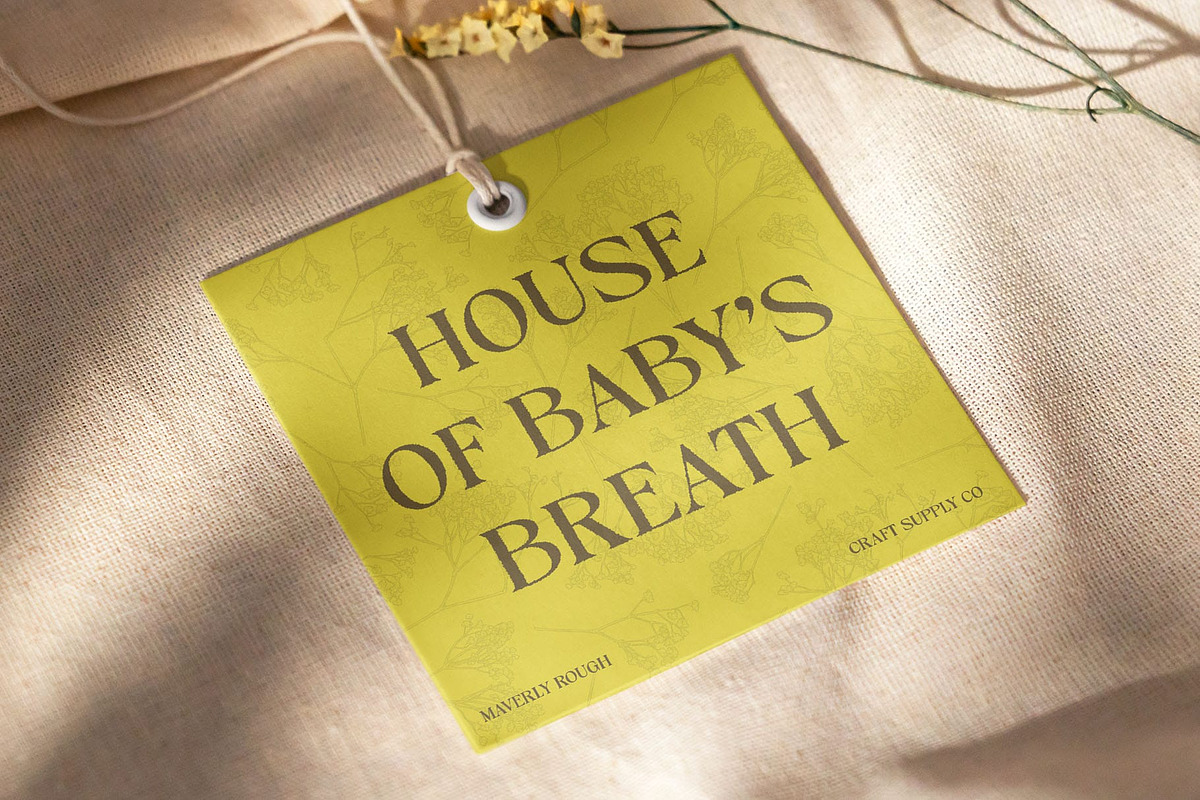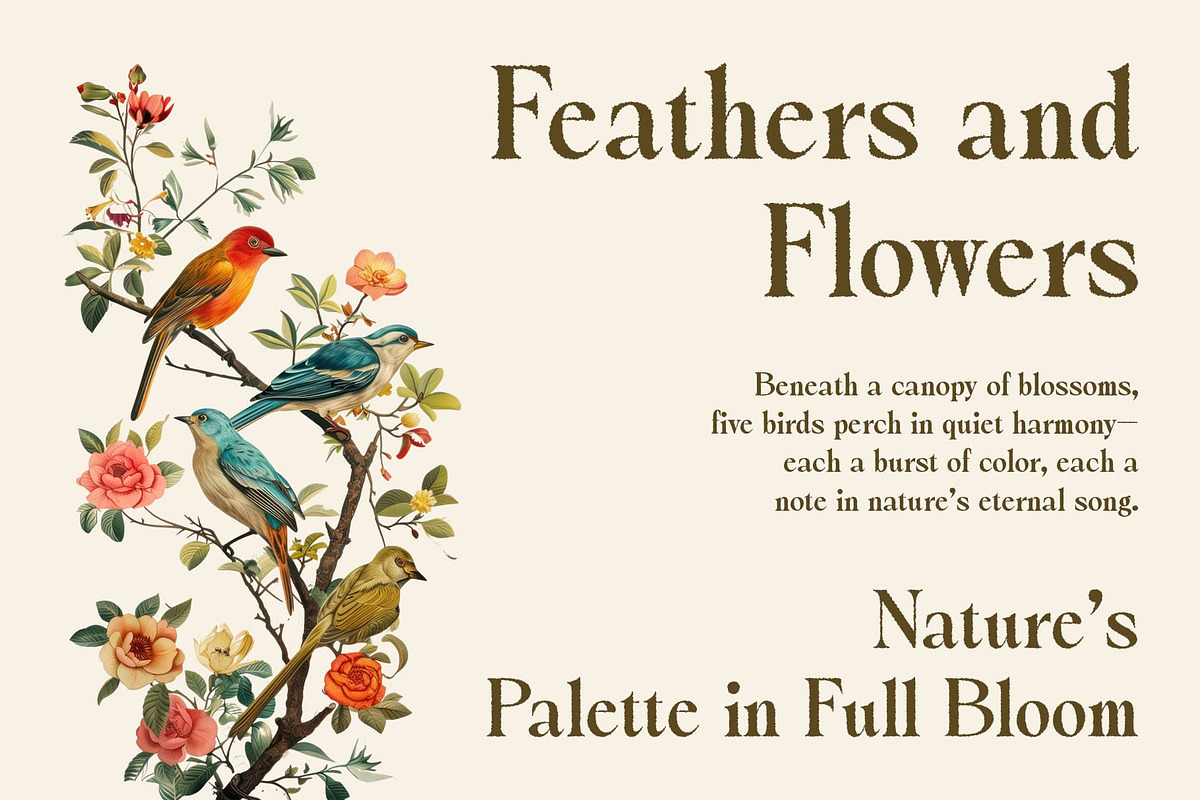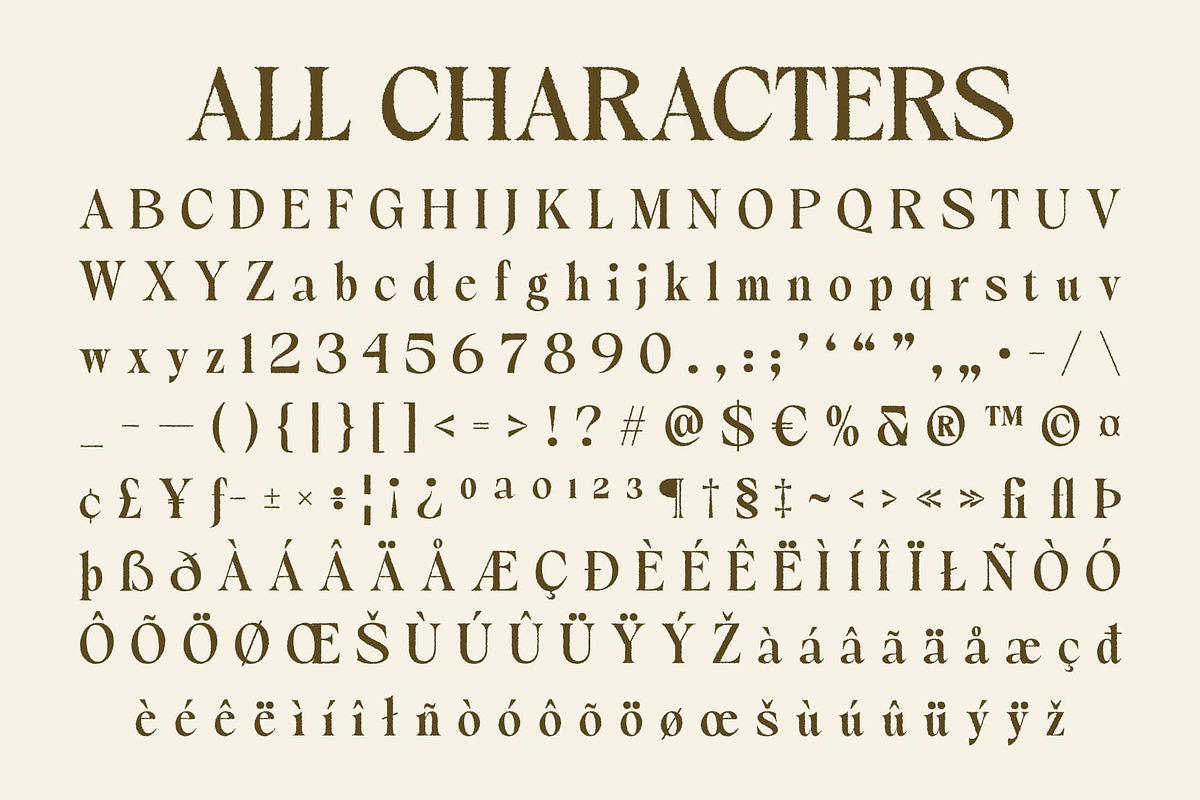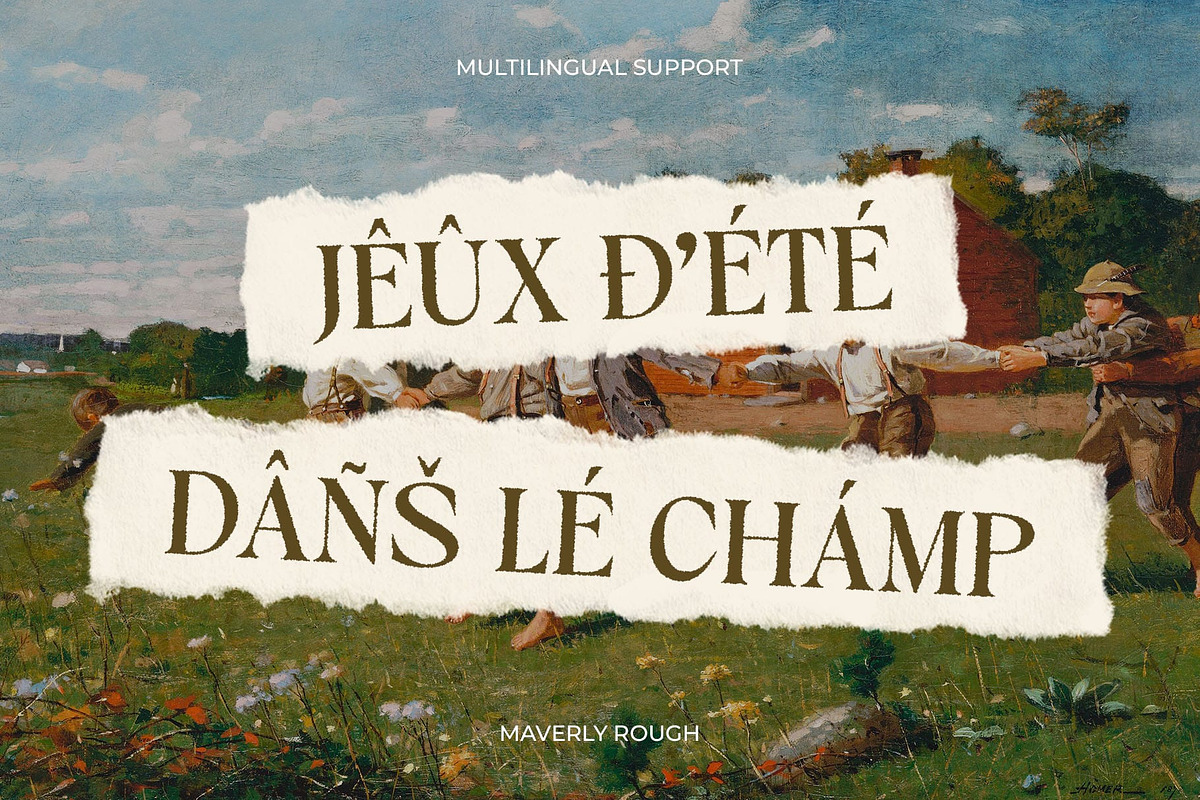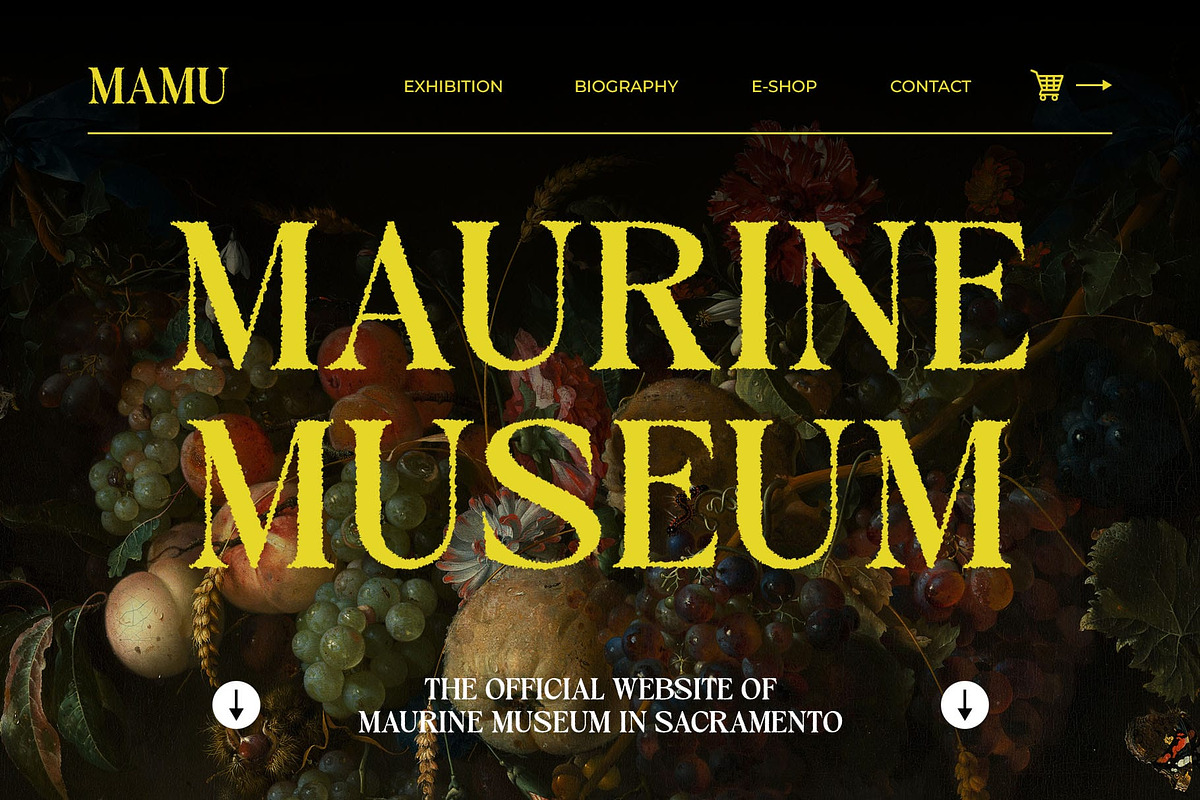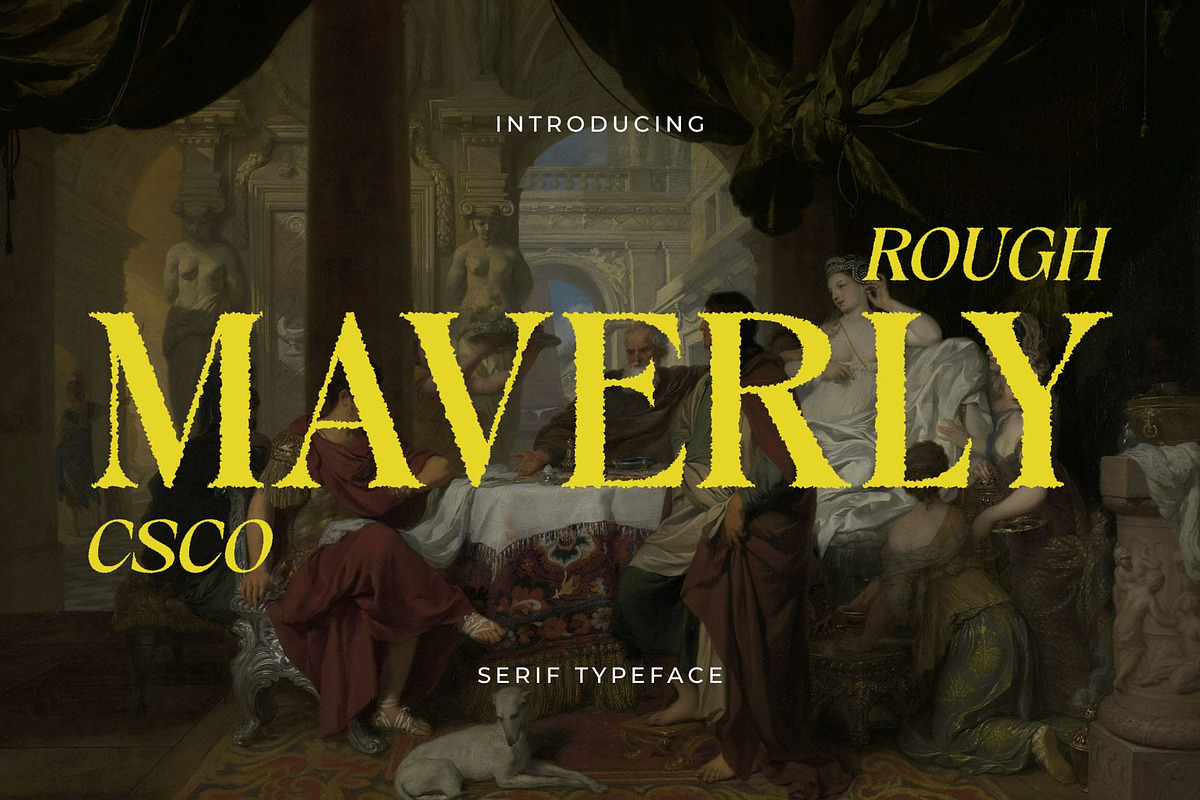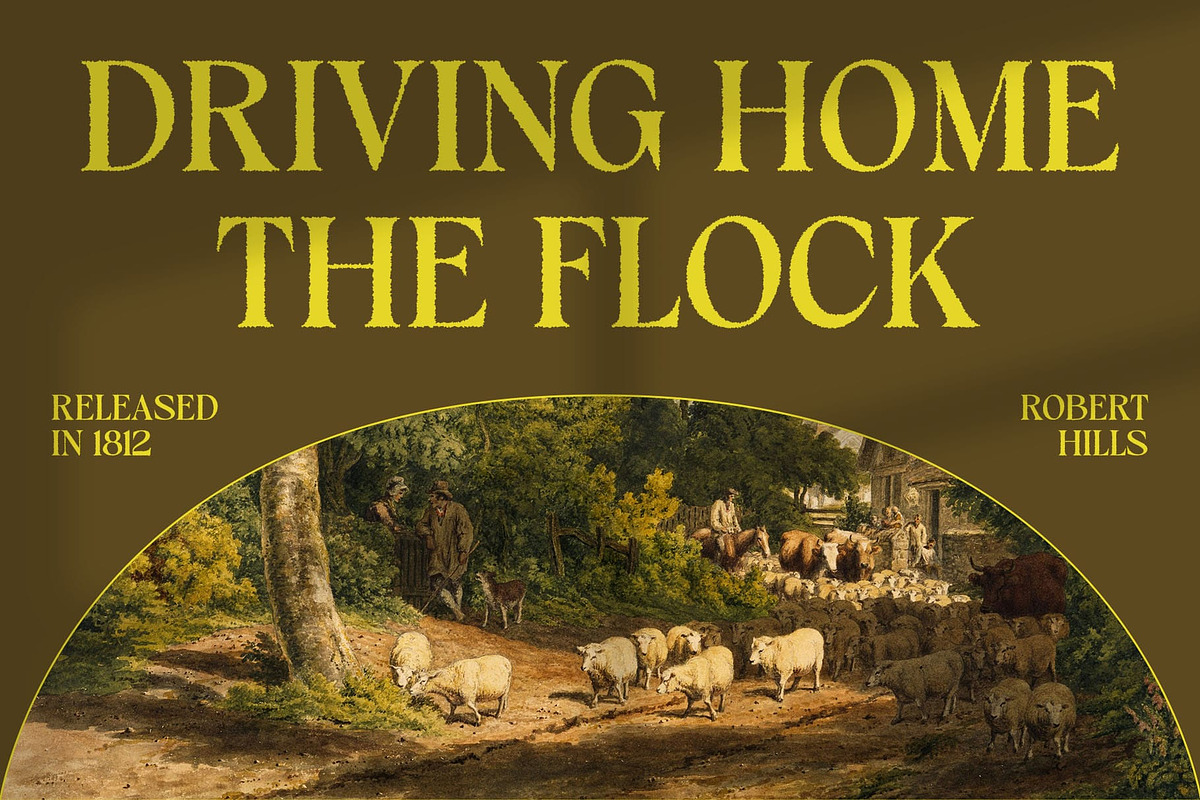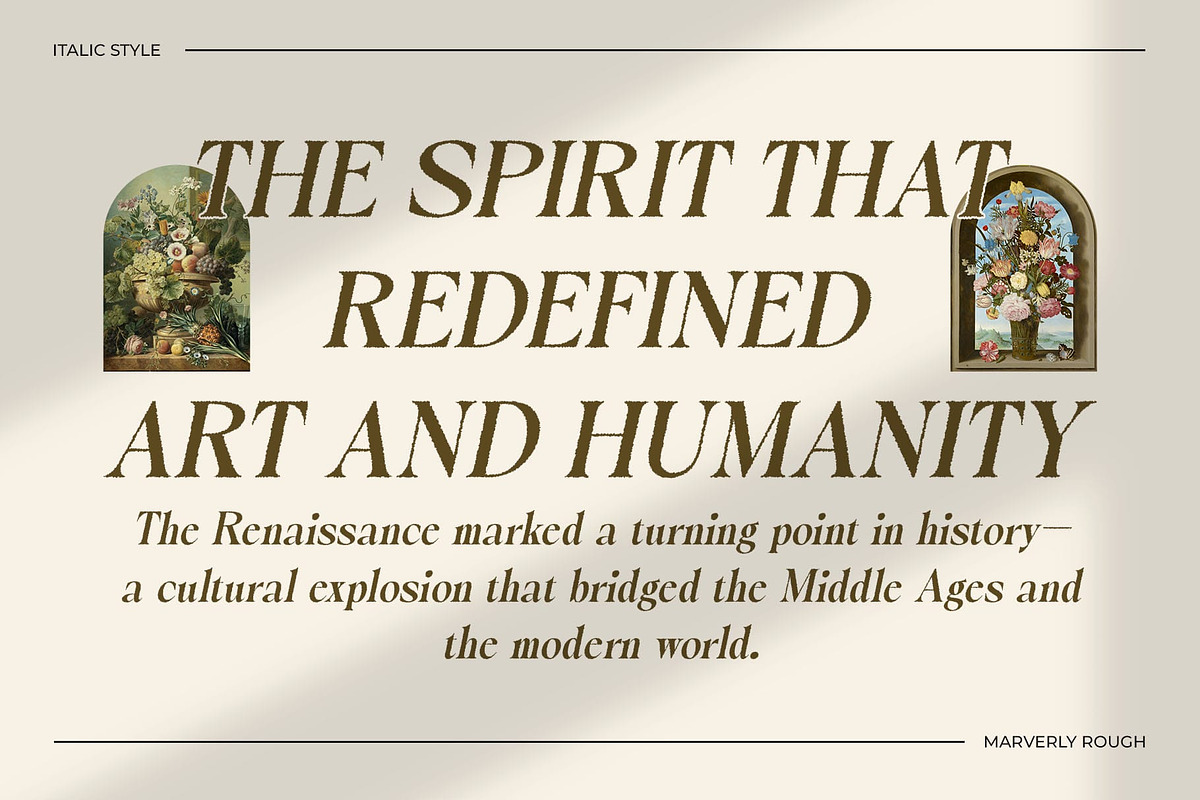
Maverly Rough
Maverly Rough Font: Luxury Meets Raw Elegance
Sharp, Elegant Character with Subtle Aesthetic Nuances Maverly Rough is a serif modern font that blends clean, contemporary design with sharp yet elegant letterforms, giving off a sense of luxury and professionalism. Its minimalist structure ensures a bold presence while allowing for subtle aesthetic nuances that elevate its sophistication.
Rough Effect for Artistic, Textured Personality When enhanced with a rough effect, Maverly Rough transforms into a more dynamic and textured version of itself, adding an artistic, character-driven touch. This rough texture introduces an organic, almost hand-crafted feel that contrasts beautifully with the sleek, modern design of the font.
Ideal for Designs with a Modern, Vintage Twist Perfect for creative projects that call for a modern aesthetic with a vintage twist, Maverly Rough is ideal for logo designs, branding, and editorial work. Its ability to straddle the line between polished professionalism and artistic flair makes it perfect for high-end branding, editorial layouts, and creative campaigns.
Versatile and Striking for Diverse Applications With its blend of modern and vintage elements, Maverly Rough is highly versatile, making it suitable for a wide range of applications. Whether it’s for upscale logos, editorial designs, or branding projects, this font delivers a striking visual appeal that enhances any design with sophistication and a creative edge.